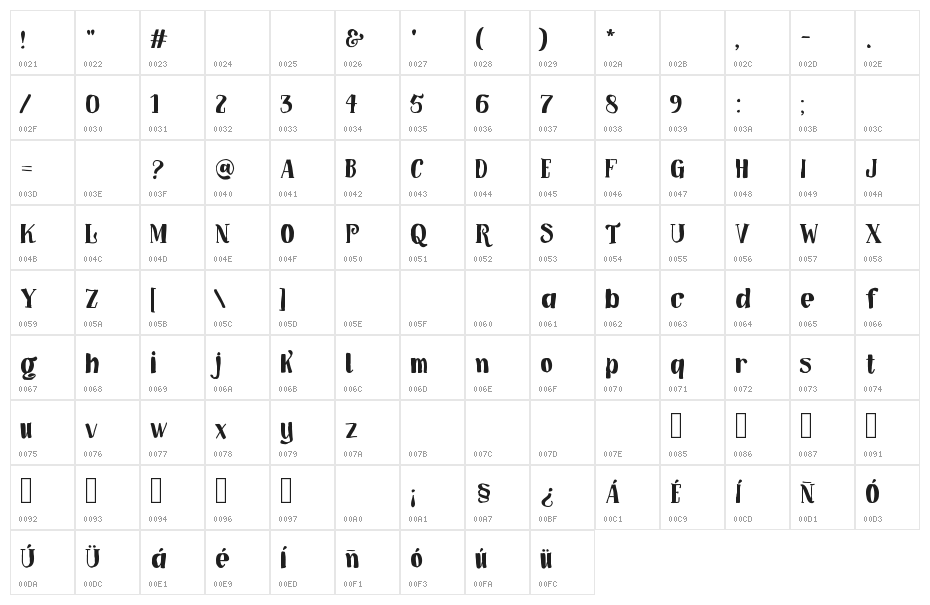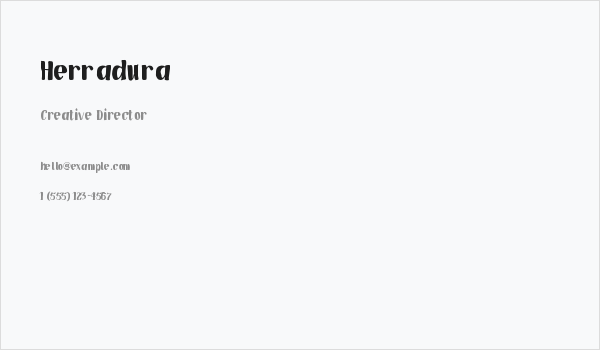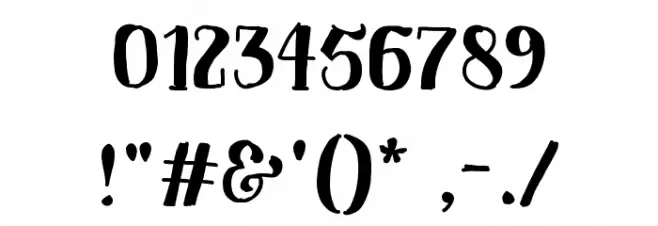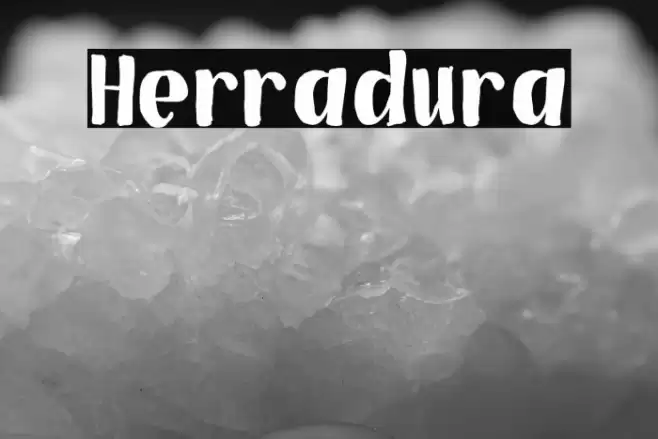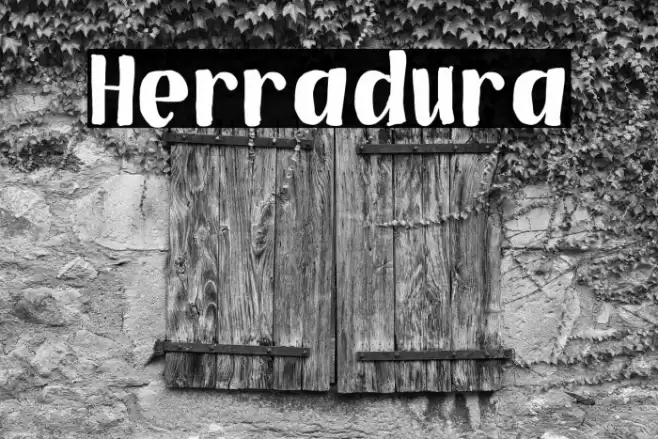
Herradura Font
This font features a bold and dynamic style with a distinctive flair. The uppercase letters are robust and slightly condensed, giving a strong presence. The lowercase letters maintain a playful yet structured form, with unique curves and angles that add character. The numerals are consistent with the overall boldness, ensuring readability and impact. Special characters are creatively designed, maintaining the font's unique style. This font is ideal for projects that require a bold statement and a touch of creativity.
| Proposed Projects | Ideal for branding, posters, headlines, and creative design projects. |